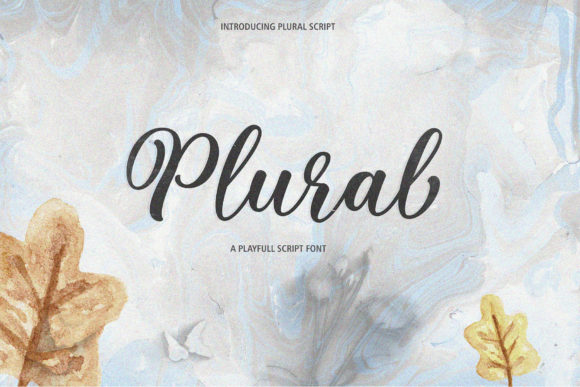
Exploring Plural Script: A Versatile Calligraphy Font for Designers and Creators
Plural Script is a modern calligraphy font that stands out for its elegant, handwritten style combined with the flexibility of PUA encoding. Designed to offer both artistic flair and practical usability, it has become a popular choice among designers, wedding planners, and branding professionals. Whether you're looking to create eye-catching invitations, unique logos, or visually engaging blog titles, Plural Script provides a rich set of glyphs and swashes that can elevate your design work.
What Makes Plural Script Unique?
At its core, Plural Script is a calligraphy-style font that mimics the look of traditional ink handwriting. However, what sets it apart from other similar fonts is its inclusion of special characters and an extensive range of stylistic variations. These features allow users to customize their text with ease, making it ideal for creative projects that require a personal touch.
The font's PUA (Private Use Area) encoding ensures that all additional characters and swashes are accessible through standard font tools. This means you don't need any special software or plugins to access these features—just a basic design application like Adobe Illustrator, Photoshop, or even free tools like Canva.
Another notable feature of Plural Script is its versatility. It works well in a wide range of design contexts, from formal branding materials to more casual, handcrafted visuals. Its clean yet expressive lines make it suitable for both digital and print media, ensuring that your designs look professional across different platforms.
Comparing Plural Script with Other Calligraphy Fonts
When considering calligraphy fonts, it's important to evaluate how each one fits your specific needs. While many calligraphy fonts offer a similar aesthetic, they often differ in terms of character variety, ease of use, and compatibility with design software.
Fonts like Great Vibes or Playfair Display are also popular choices for wedding and branding designs. However, these fonts typically lack the same level of customization offered by Plural Script. For instance, while Great Vibes is known for its flowing, decorative style, it doesn’t include as many special characters or swash options. Similarly, Playfair Display offers a more structured, serif-based approach that may not be as suitable for informal or handwritten-style projects.
In contrast, Plural Script provides a balance between elegance and flexibility. Its combination of fantasy elements and realistic ink textures makes it particularly well-suited for projects that require both visual appeal and functional readability. This makes it a strong contender when compared to other script fonts that may prioritize style over usability.
Strengths and Tradeoffs of Using Plural Script
One of the main strengths of Plural Script is its adaptability. It can be used in a wide range of design applications, from simple text overlays to complex layouts. The inclusion of special characters and swashes allows for greater creativity, enabling users to add unique flourishes to their text without the need for additional graphics or images.
However, there are also some tradeoffs to consider. Because it is a script font, it may not be the best choice for long blocks of text where readability is a priority. Script fonts are generally more suited for short phrases, headlines, or titles rather than body text. Additionally, while Plural Script offers a high degree of customization, it does require some familiarity with PUA encoding to fully utilize all of its features.
For those who are new to using script fonts or working with PUA-encoded typefaces, there may be a learning curve involved. However, this is a common challenge with many advanced font types, and the benefits of using Plural Script often outweigh the initial effort required to master its features.
Best-Fit Situations for Plural Script
Plural Script is especially well-suited for situations where a personal, handwritten feel is desired. Here are some examples of where this font shines:
- Wedding Invitations: The elegant, flowing lines of Plural Script make it perfect for creating romantic and personalized wedding invites.
- Branding Materials: From logos to business cards, Plural Script adds a unique, artistic touch that can help differentiate your brand.
- Blog Titles and Quotes: Its stylish appearance makes it an excellent choice for headlines or featured quotes on websites and social media posts.
- Invitations and Event Cards: Whether it's for birthdays, anniversaries, or corporate events, Plural Script can add a sense of occasion and sophistication.
These use cases highlight how versatile Plural Script can be. However, it’s important to remember that it may not be the best fit for every project. If your design requires clear, easy-to-read text for large audiences, a sans-serif or serif font might be a better option.
As with any design tool, it's important to consider your specific needs and project requirements before choosing a font. By understanding the strengths and limitations of Plural Script, you can make an informed decision about whether it's the right choice for your next design project.